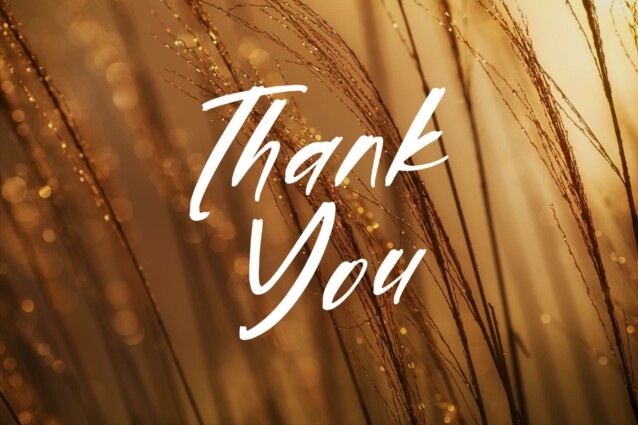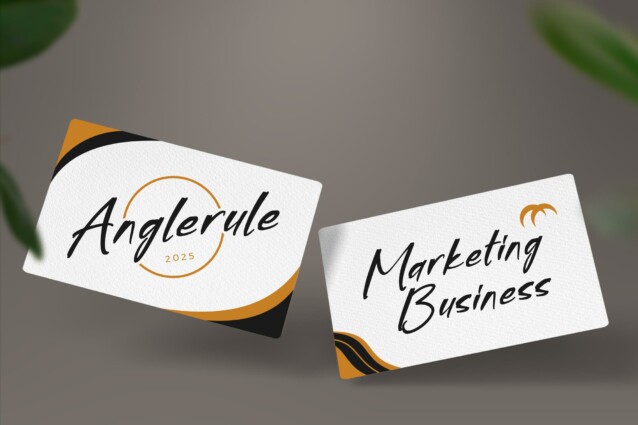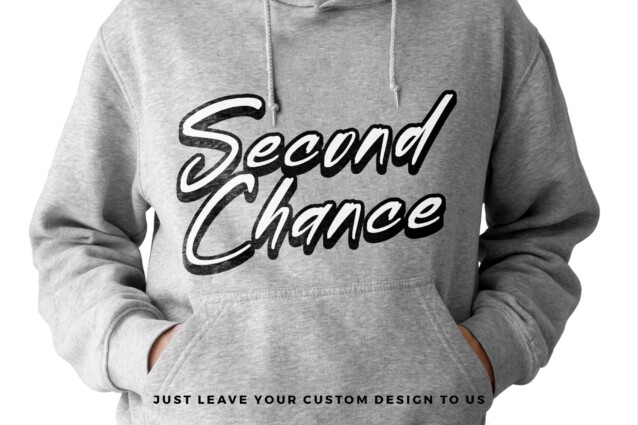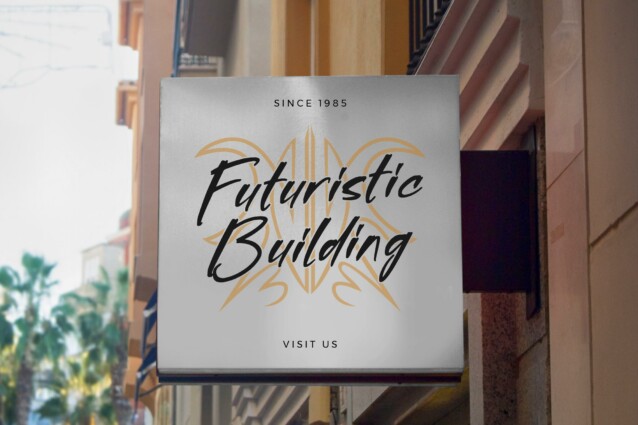
Gloryvibes Jordanila Font
Gloryvibes Jordanila Font is a Handbrush Display Font, suitable for any projects such as: logos, branding projects, homeware designs, product packaging, mugs, quotes, posters, shopping bags, t-shirts, book covers, name card, invitation cards, greeting cards, label, photography, watermark, special events, and all your other lovely projects that need a beautiful script taste.